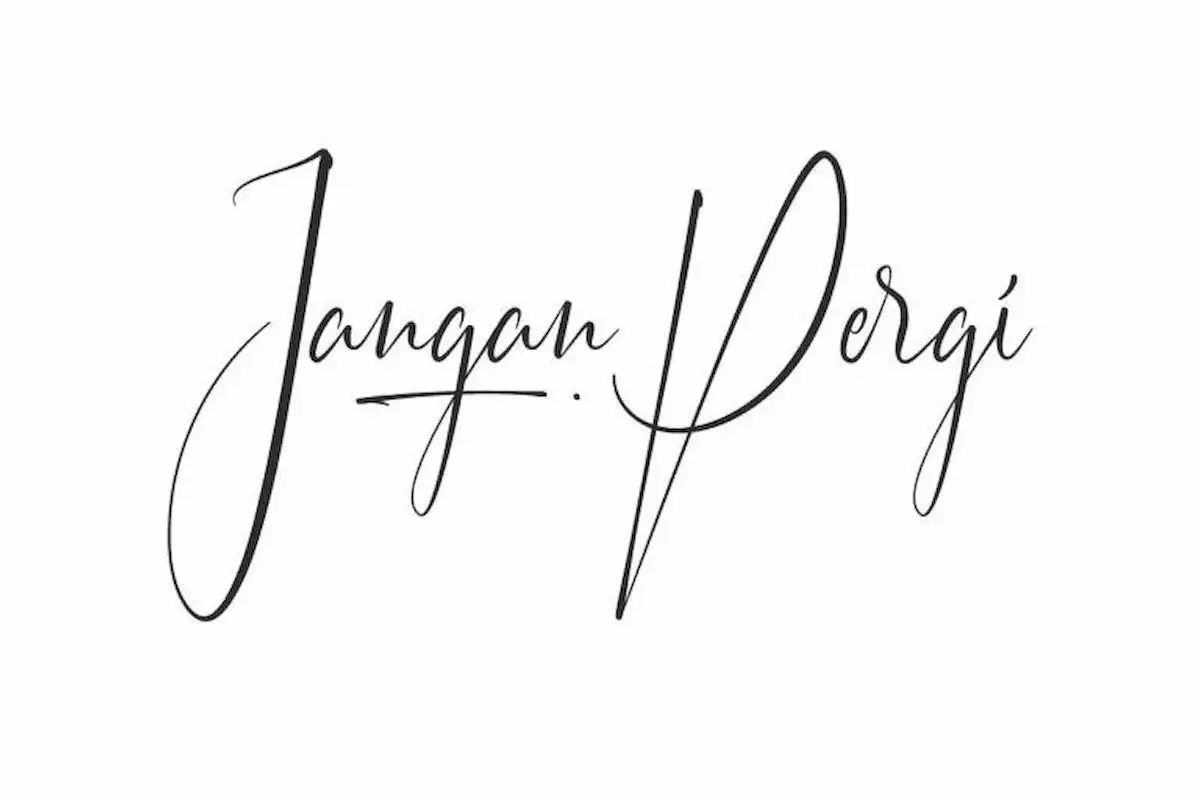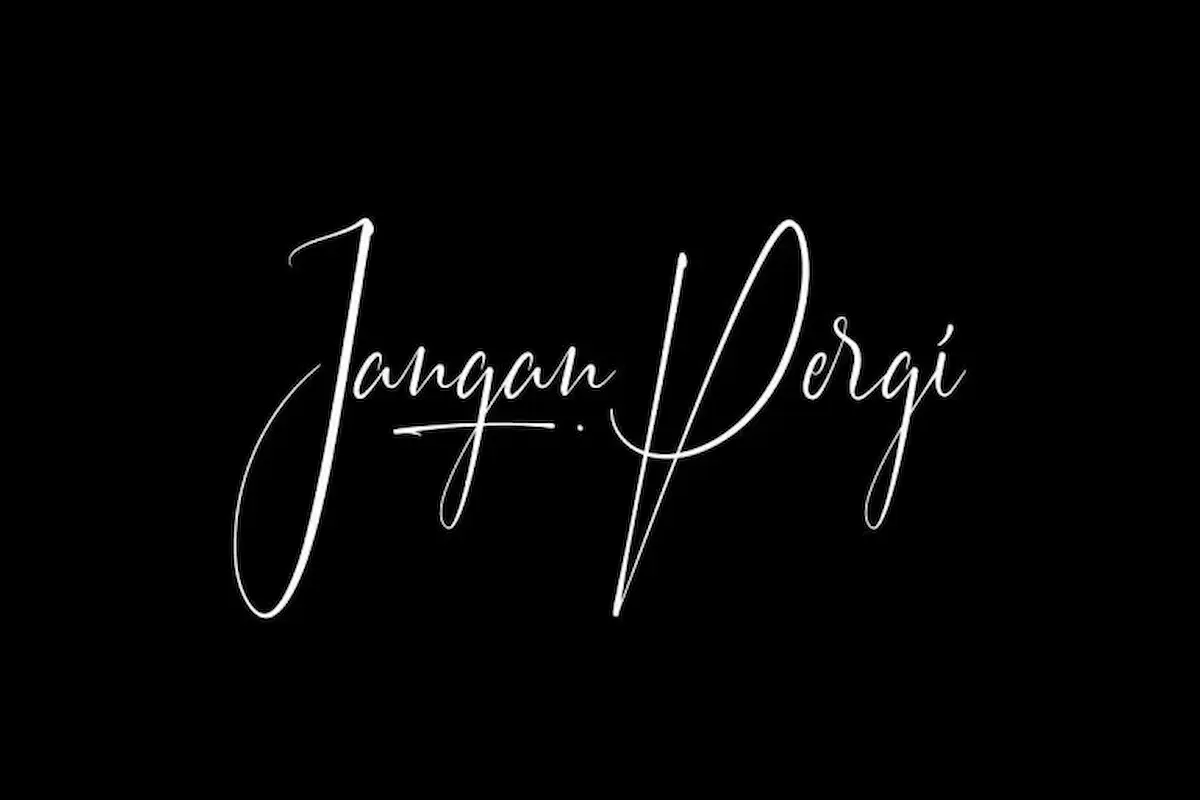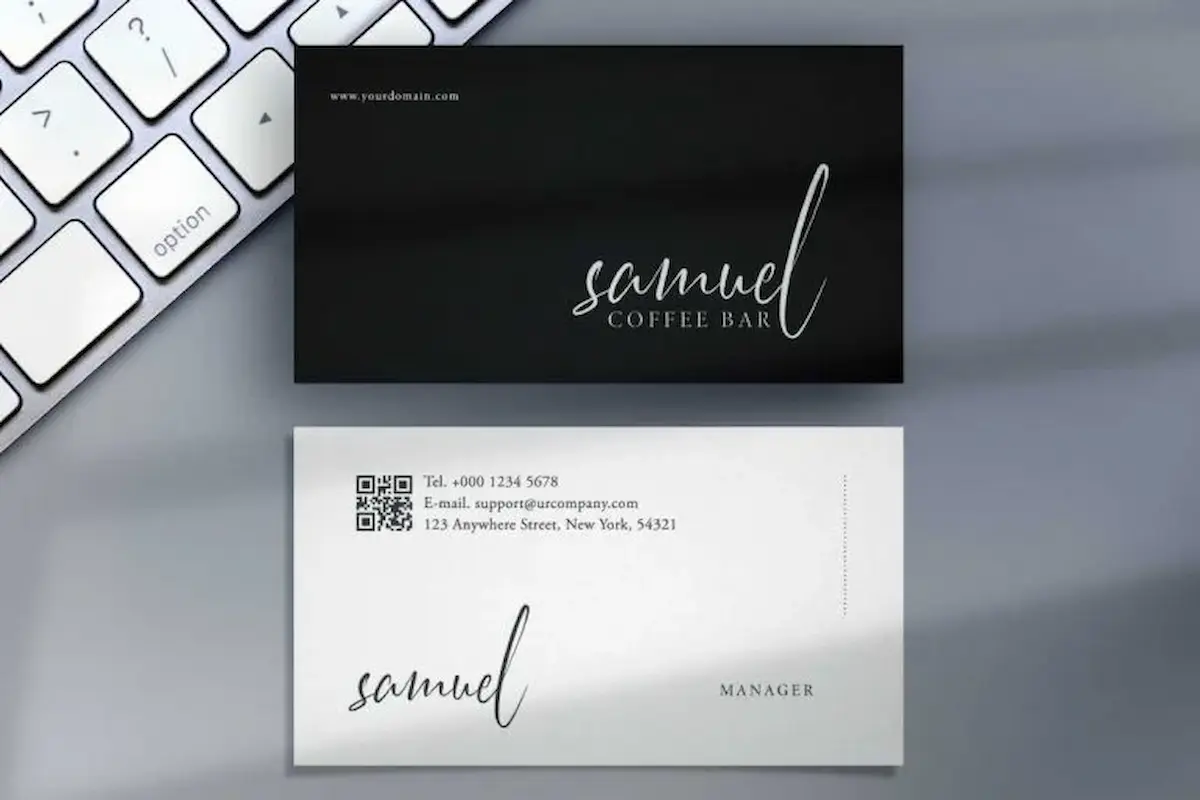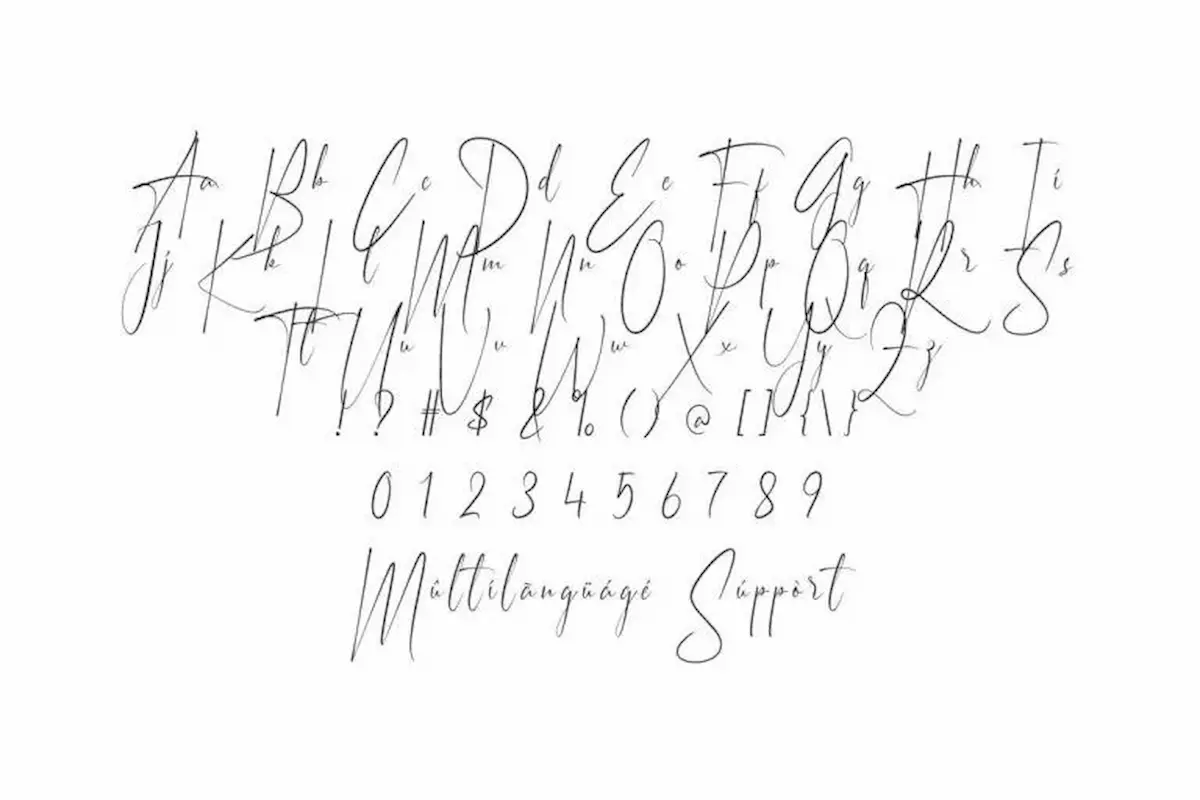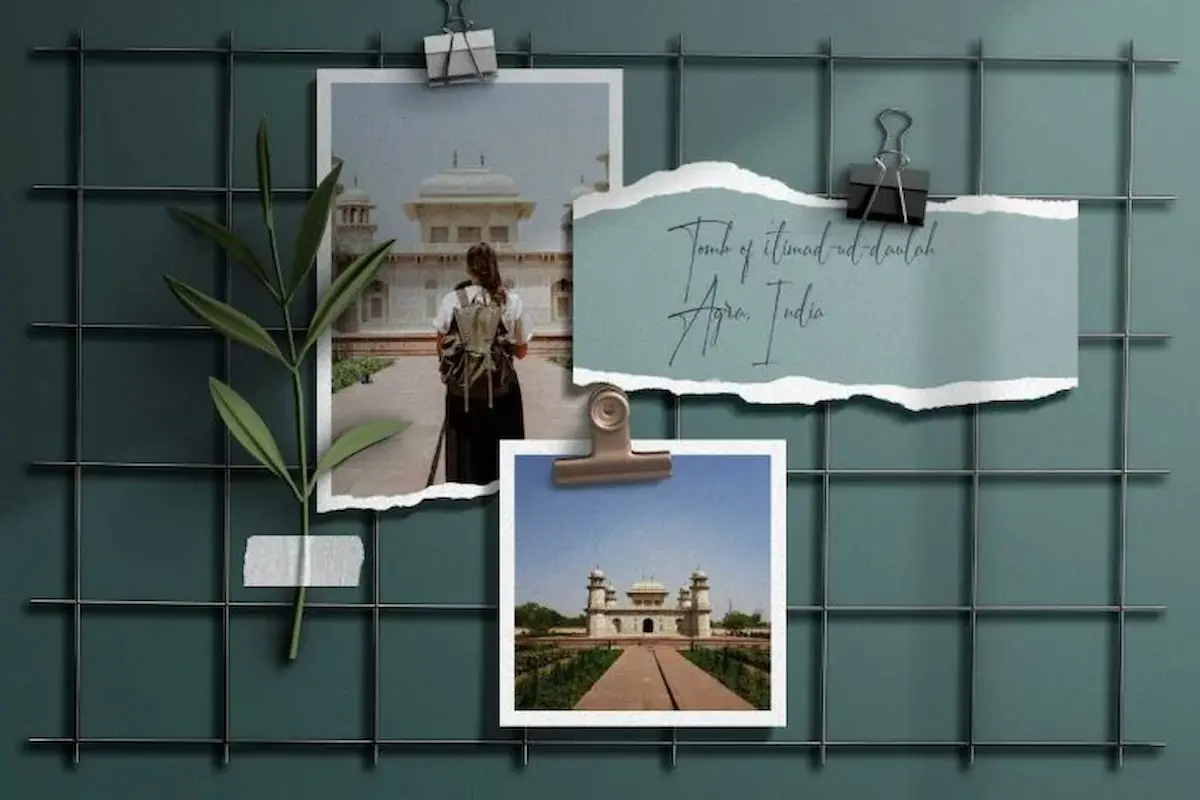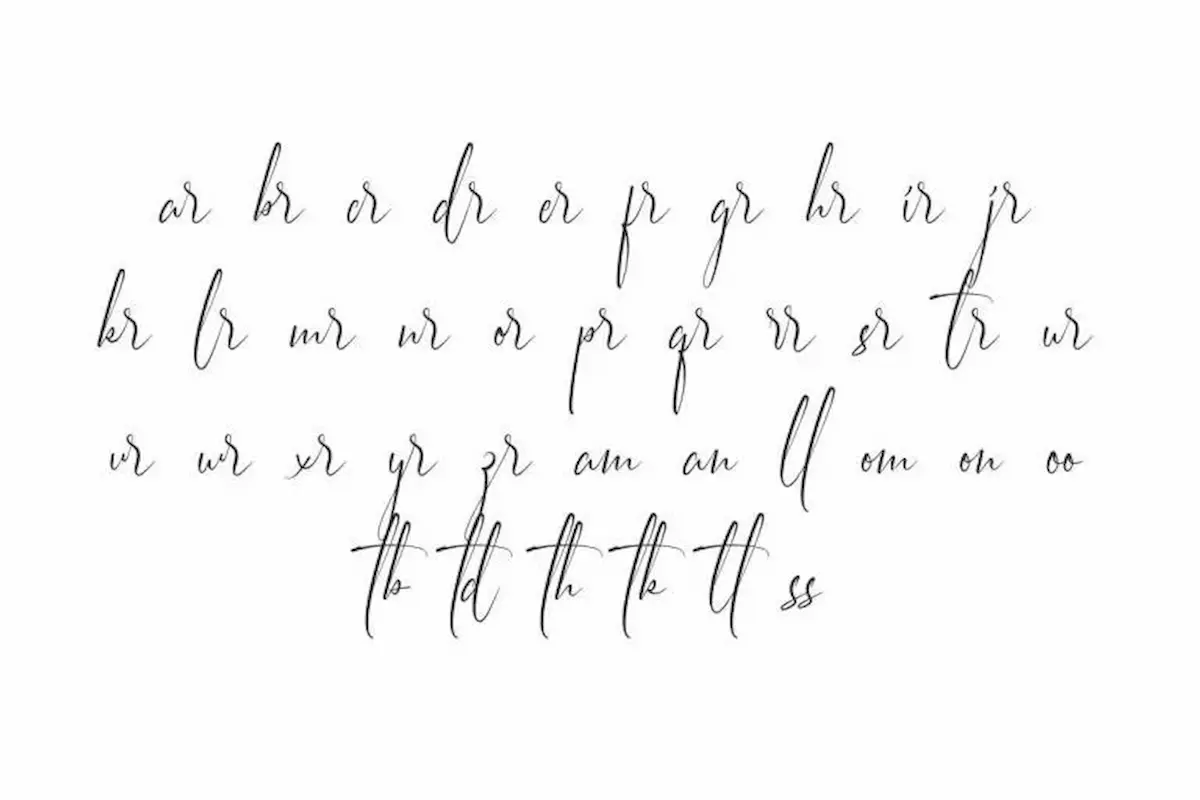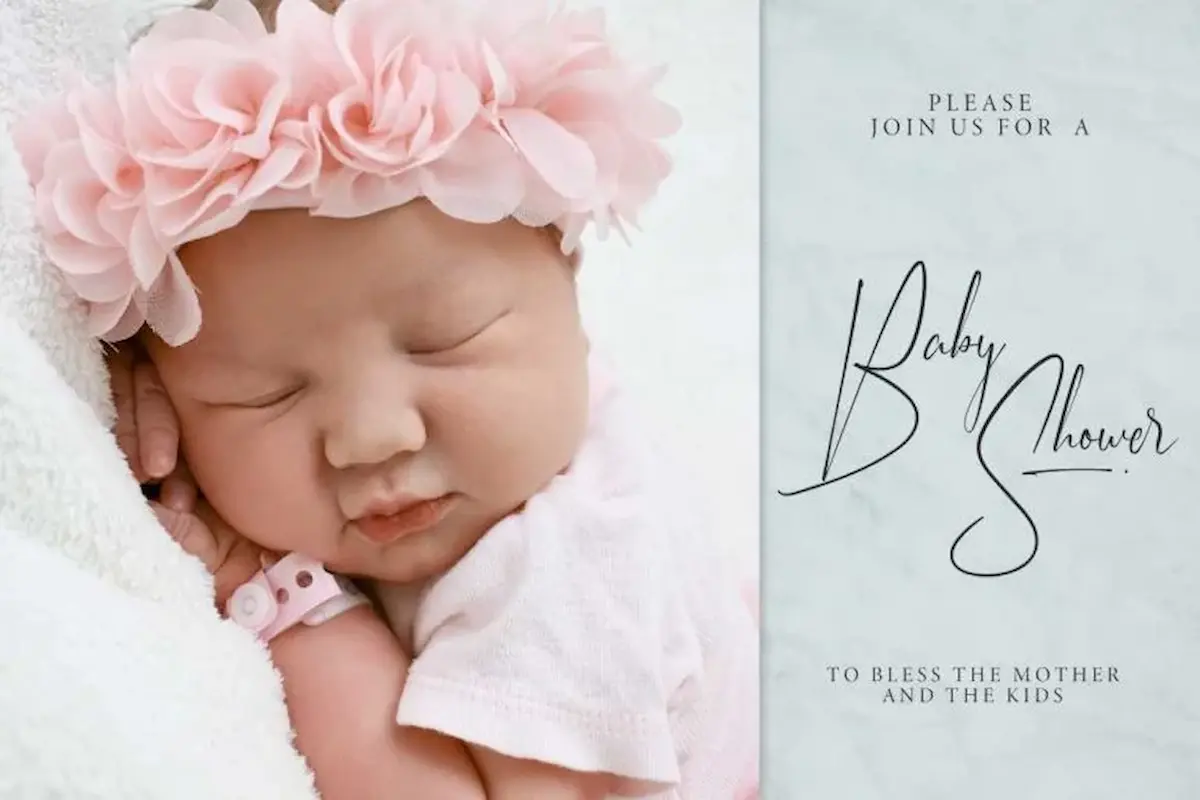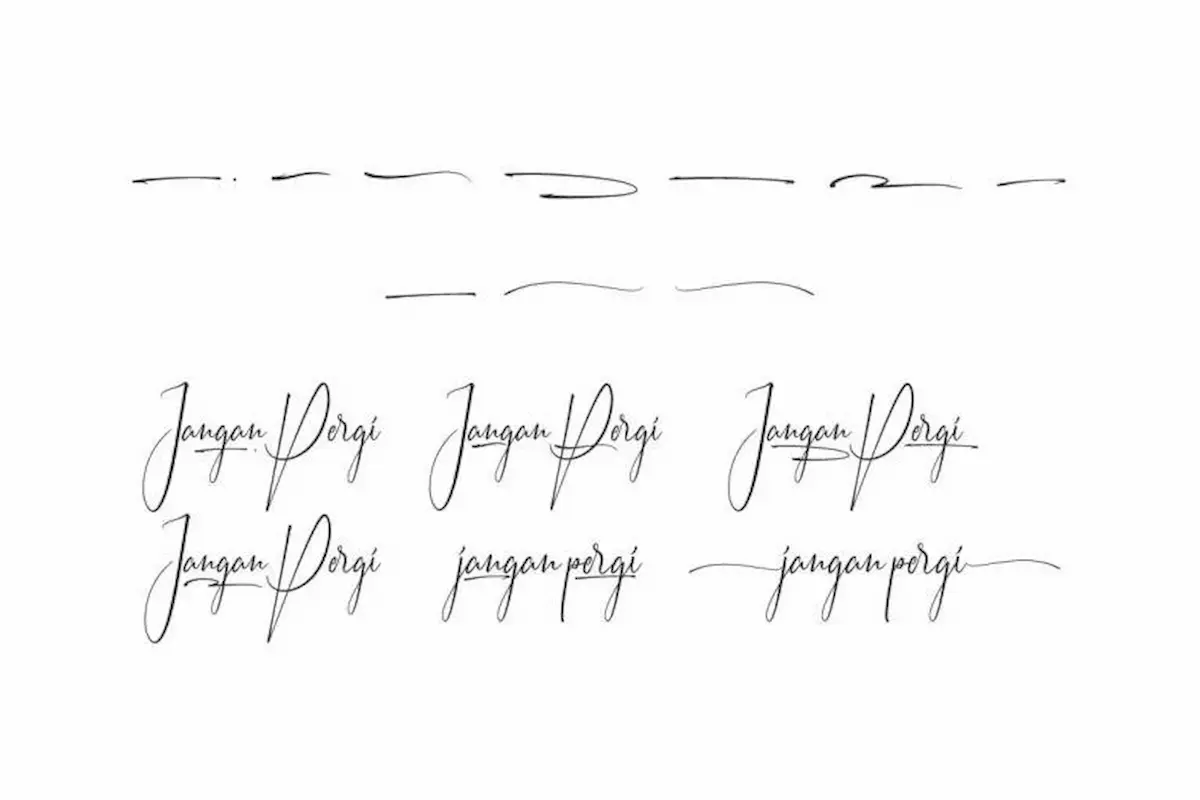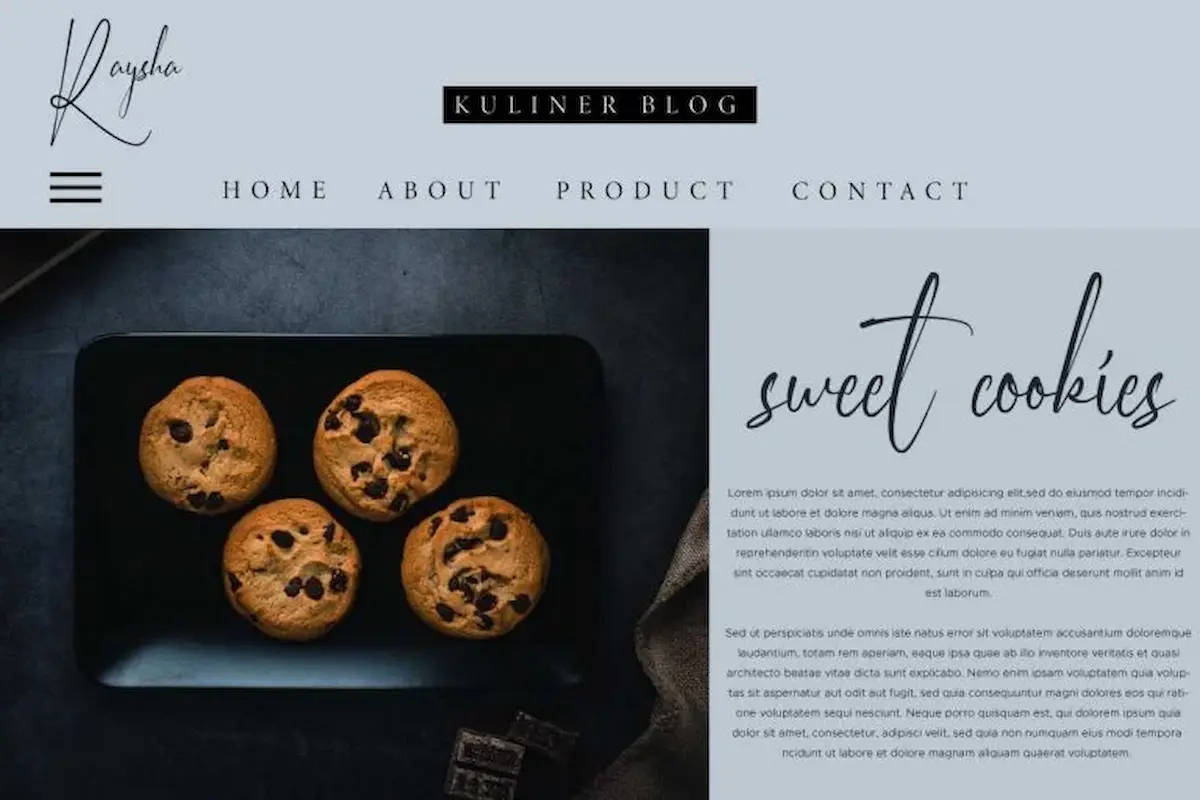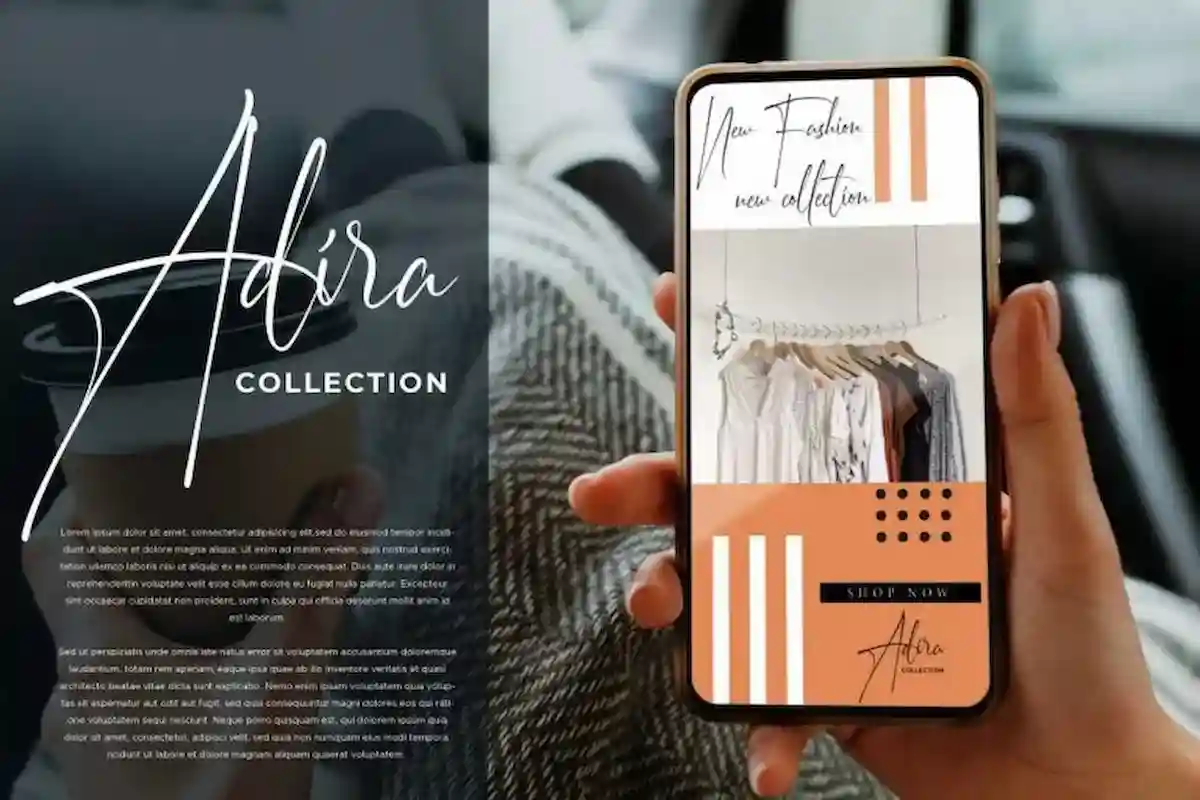
Jangan Pergi Signature Font
Jangan Pergi Font is a stylish signature font by NihStudio. Jangan Pergi Font will be great for professionals, video, photography watermark etc
Jangan Pergi Font is a stylish signature font by NihStudio. Try the font by typing your own text below. Please note that the test font below is a demo file, so some specimens/ characters will not show up. Jangan Pergi Font is a stunning signature handwriting script font,  made in Indonesia 2021 by Our Font Designer :  Widi and Suci.
Jangan Pergi font will be awesome for many projects (some require extended license) including : branding, logo, stationery, business card, signage, flyer, brochure etc. The theme style of the font is professional, elegant, handmade, old, casual, vintage, stylish, sophisticated and handwriting style. The font will be match for this typeface: wedding, events, real estate, architect, law firm, florist, gardening, makeup artist, travel, hotel, musician etc